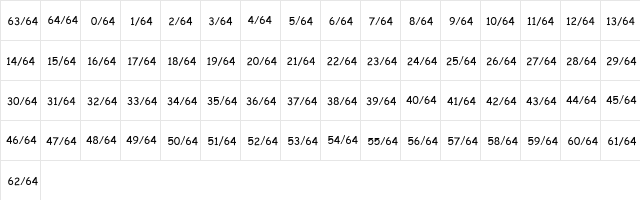
pf_64ths Regular
Design Context for pf_64ths Typeface
pf_64ths offers clean, dependable letterforms without strong stylistic allegiance, making it a practical choice for designers who need flexibility.